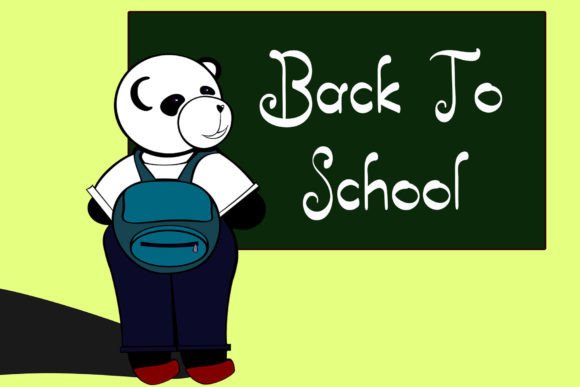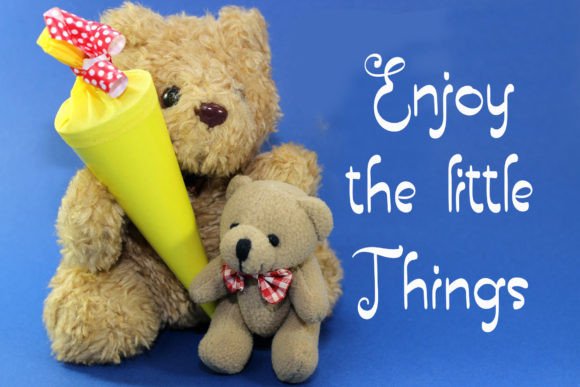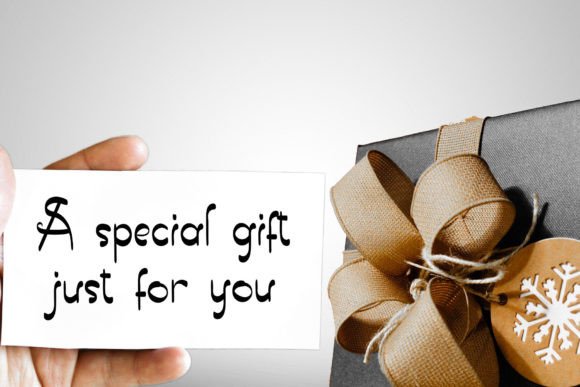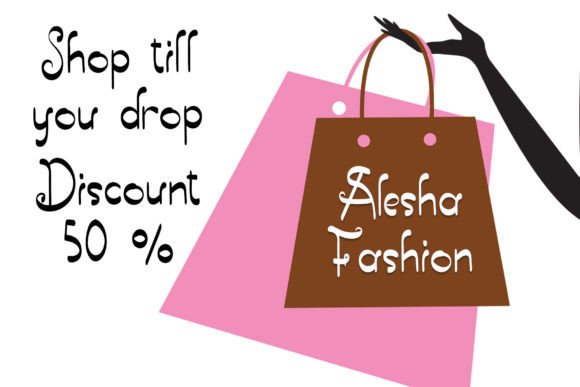
Ashlea Font: Elevate Your Designs with Elegance and Sophistication
In the world of typography, fonts play a crucial role in conveying the tone and personality of a brand or creative project. For designers and crafters seeking a unique and elegant font to elevate their work, Ashlea Font is an exceptional choice. This versatile font is suitable for a wide range of applications, from logotypes and corporate identity to apparel, posters, music, movies, games, comics, and more.
What Makes Ashlea Font Stand Out?
Ashlea Font boasts a distinctive and refined design, characterized by its elegant lines, balanced proportions, and sophisticated flair. Its unique features make it an ideal choice for designers looking to add a touch of luxury and refinement to their projects. Here are some key characteristics that set Ashlea Font apart:
- Unique and Elegant Design: Ashlea Font features a one-of-a-kind design that exudes elegance and sophistication, making it perfect for high-end branding and creative projects.
- Versatile and Adaptable: This font is highly versatile and can be used across various industries and applications, from corporate identity to apparel and entertainment.
- Excellent Legibility: Ashlea Font is designed with legibility in mind, ensuring that your message is conveyed clearly and effectively, even at smaller font sizes.
Applications for Ashlea Font
Ashlea Font’s versatility makes it an excellent choice for a wide range of design projects. Here are some of the many applications where Ashlea Font shines:
- Logotypes and Corporate Identity: Create a lasting impression with a custom logotype or brand identity that showcases your company’s values and personality.
- Apparel Industry: Elevate your fashion brand with Ashlea Font, perfect for clothing labels, packaging, and marketing materials.
- Posters and Advertising: Make a statement with eye-catching posters and ads that feature Ashlea Font’s elegant and sophisticated design.
- Music, Movies, and Games: Add a touch of glamour to your entertainment projects, such as movie titles, album covers, or game packaging.
- Comics and Graphic Novels: Bring your comic book characters to life with Ashlea Font’s unique and captivating design.
Why Choose Ashlea Font?
With so many fonts available, why choose Ashlea Font for your design projects? Here are some compelling reasons:
- Time-Saving: Ashlea Font is designed to save you time and effort, allowing you to focus on the creative aspects of your project.
Tips for Using Ashlea Font
To get the most out of Ashlea Font, here are some expert tips:
- Experiment with Font Sizes: Ashlea Font looks great at various font sizes, so don’t be afraid to experiment and find the perfect size for your project.
- Pair with Other Fonts: Combine Ashlea Font with other fonts to create a unique and visually appealing typography scheme.
- Use in Combination with Images: Pair Ashlea Font with high-quality images to create stunning visual compositions that capture your audience’s attention.
Ashlea Font is an exceptional choice for designers and crafters seeking a unique and elegant font to elevate their creative projects. With its versatile design, excellent legibility, and wide range of applications, Ashlea Font is sure to become a staple in your font library. Whether you’re working on a corporate identity, apparel, or entertainment project, Ashlea Font is the perfect choice for adding a touch of sophistication and elegance.